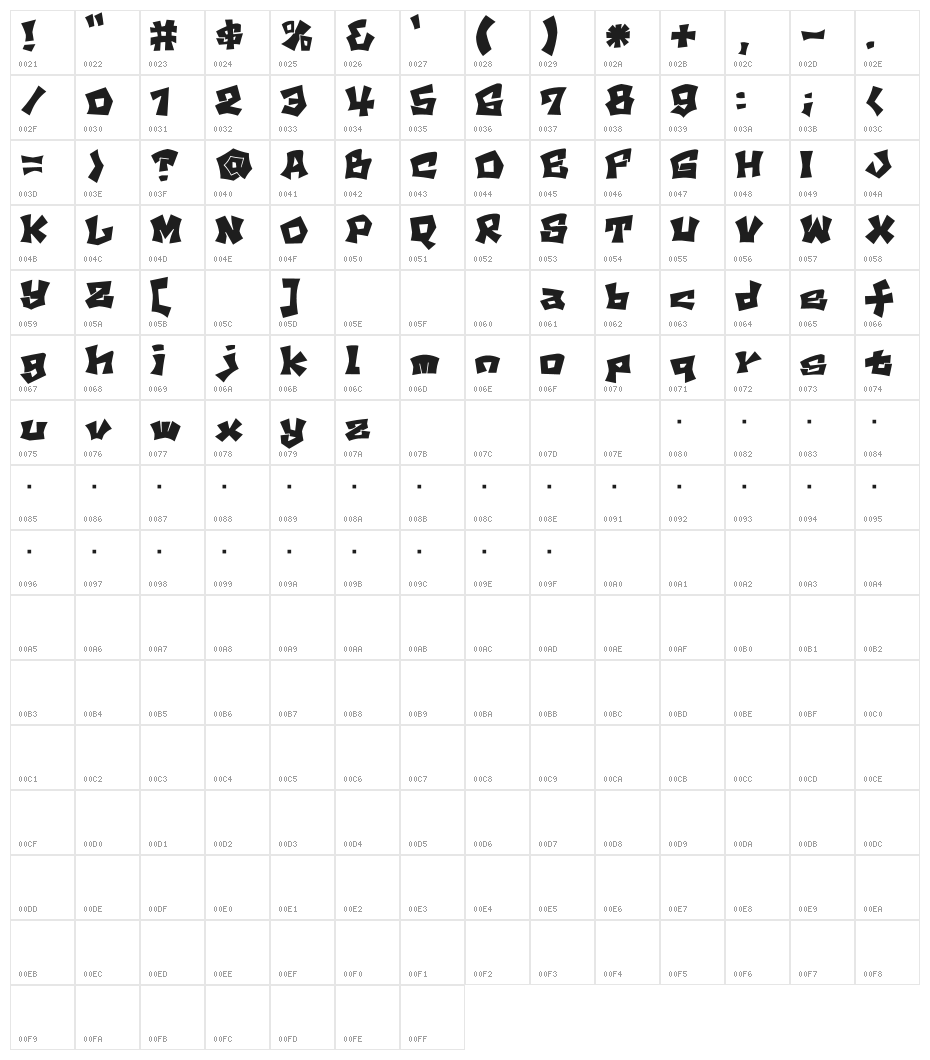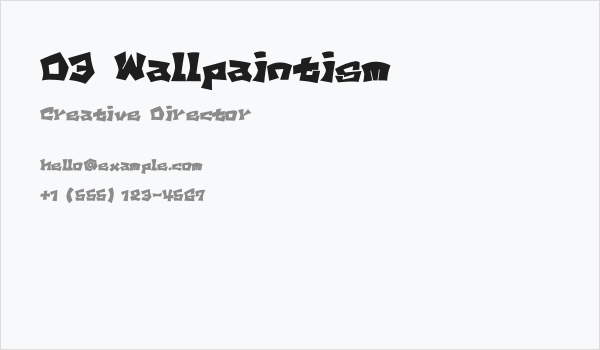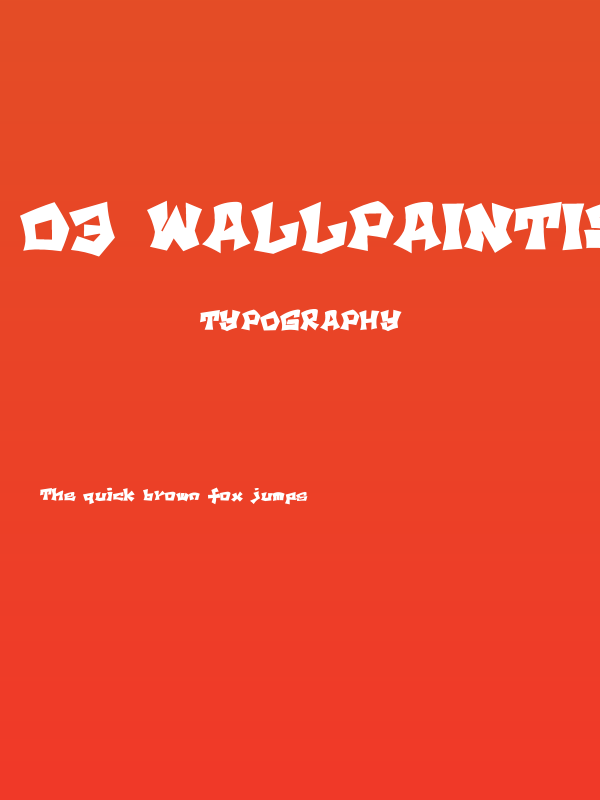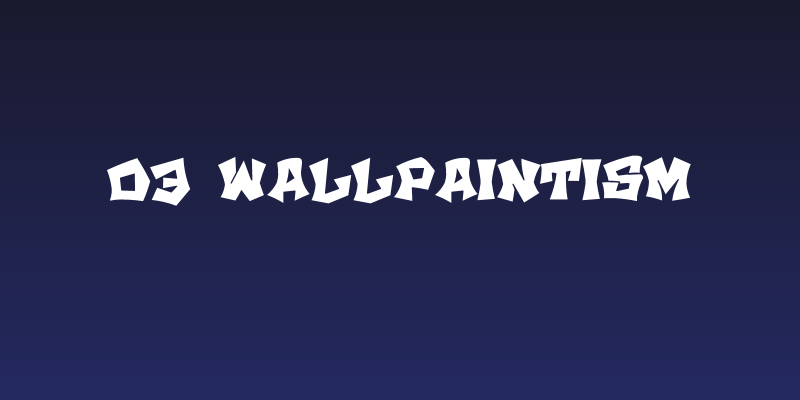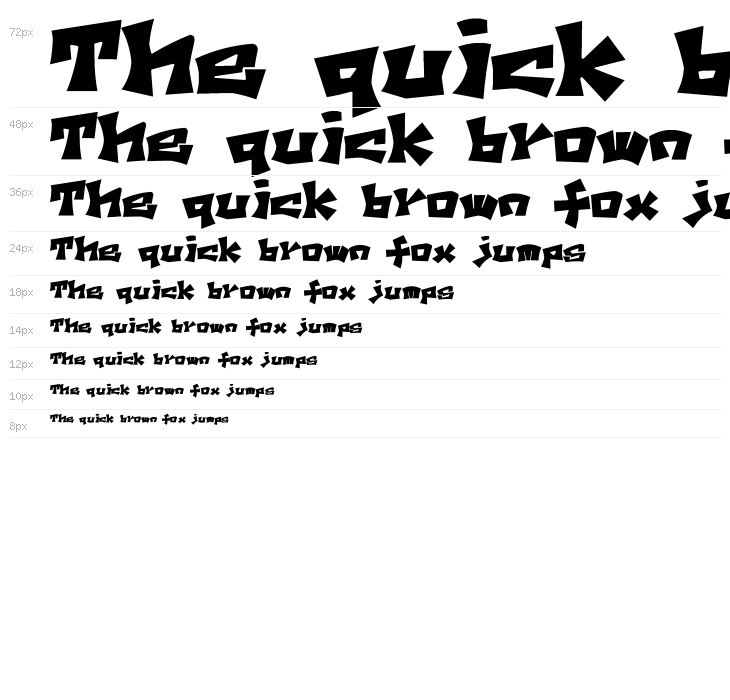
D3 Wallpaintism Font
D3 Wallpaintism Description
This font features a bold and edgy design with sharp, angular lines and a graffiti-inspired aesthetic. The characters are heavily stylized, giving them a dynamic and energetic appearance. Each letter is uniquely crafted with varying widths and angles, creating a sense of movement and vibrancy. The uppercase and lowercase letters maintain a consistent style, while the numbers and special characters complement the overall design. This font is ideal for projects that require a bold and unconventional look, such as street art, urban-themed designs, or music album covers.
| Overall Style | Modern, Urban |
| Proposed Projects | Perfect for street art, urban-themed designs, music album covers, and edgy branding. |